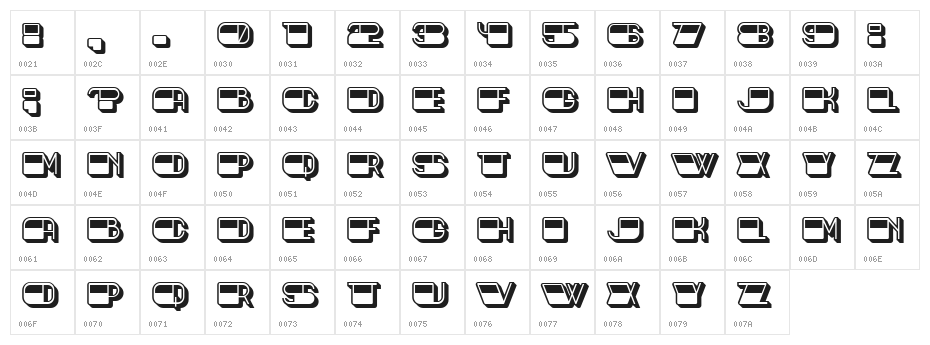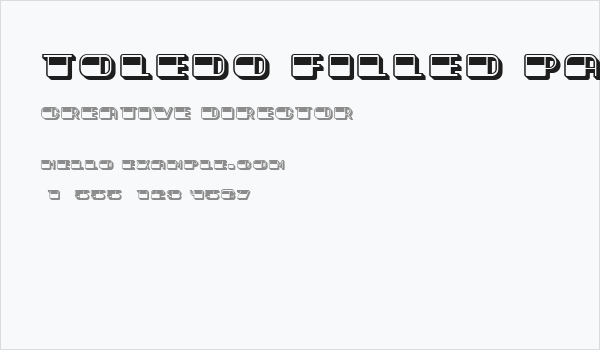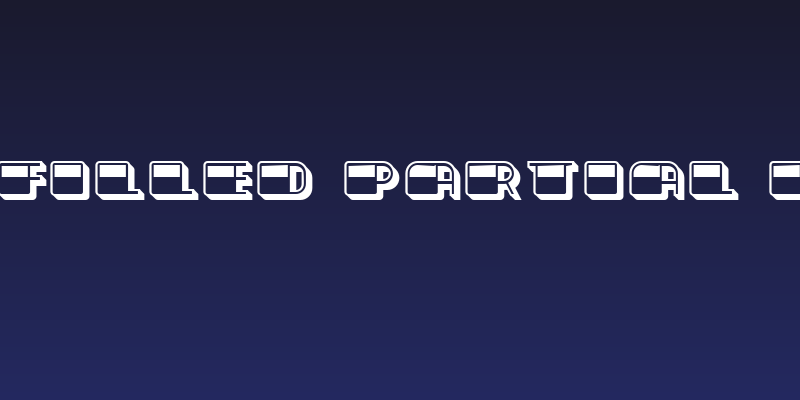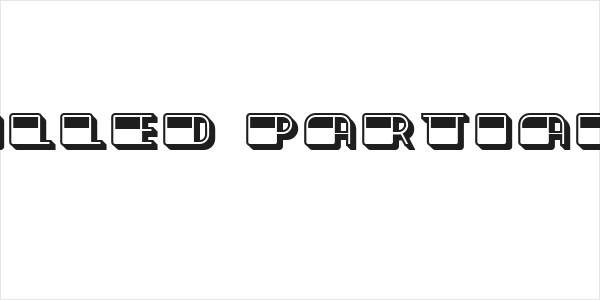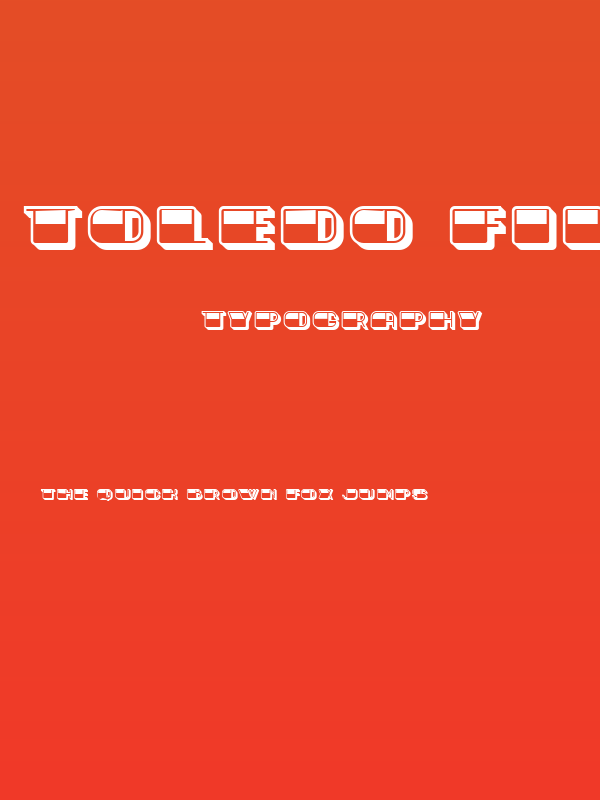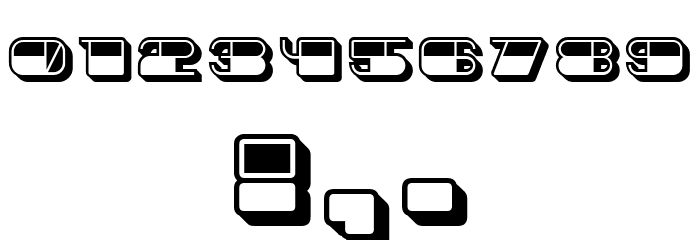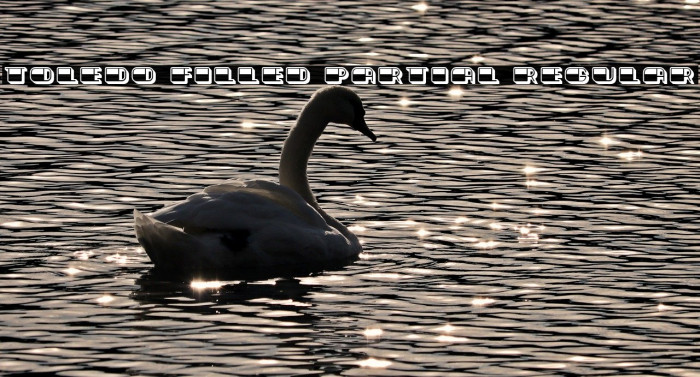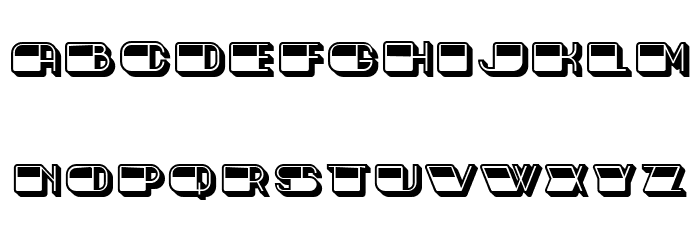
Toledo Filled Partial Regular Font
Toledo Filled Partial Regular Description
This font features a bold, geometric design with a filled, partial outline that gives it a three-dimensional appearance. The characters are constructed with thick, consistent strokes and sharp angles, creating a futuristic and industrial feel. The uppercase and lowercase letters maintain a uniform height, contributing to a cohesive look. The numbers and special characters follow the same design principles, ensuring a seamless integration across different text elements. The font's unique style makes it stand out, ideal for projects that require a modern and edgy aesthetic.
| Proposed Projects | Ideal for branding, posters, video game graphics, and any project needing a modern, edgy look. |